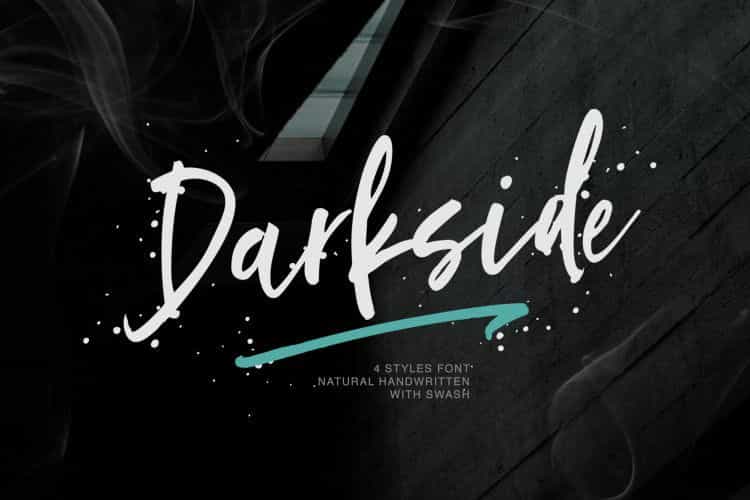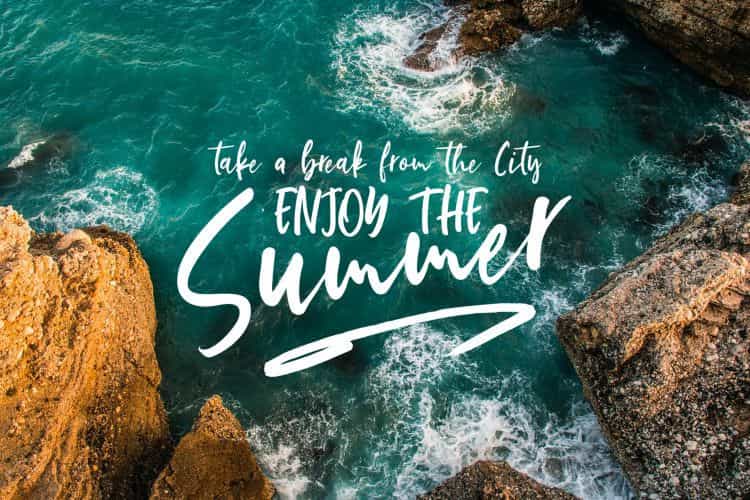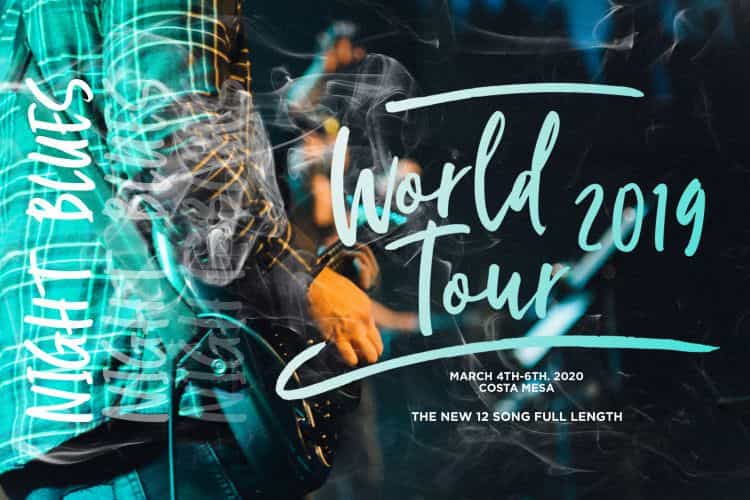
Darkside Font is a new handwritten font with the brush look that will be interesting for any designer. This beautiful script can make your design project look elegant, classy, luxury and modern, and can be used in numerous designs including invitations, logos, brands, and more. Darkside is a natural brush font with four styles that will provide a relaxed feeling to your project. Since it is made by hand, your design will be more distinct in terms of quality.